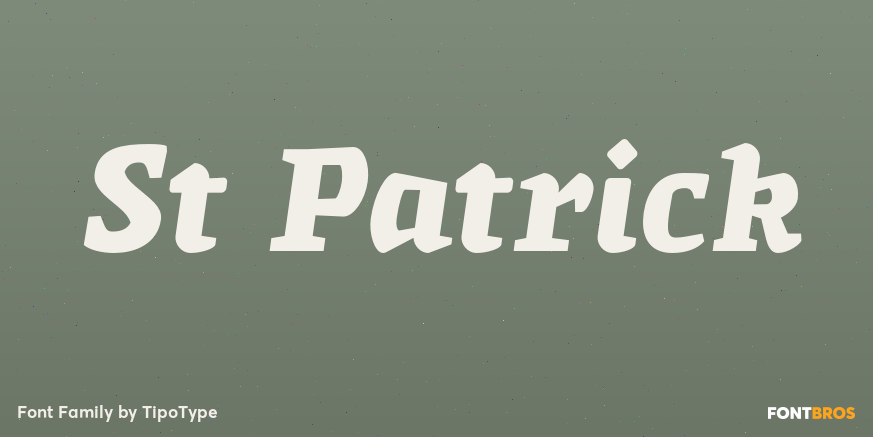
St Patrick
St Patrick is a typeface inspired by medieval inscriptions but adapted to modern typography. In addition to the regular style there are 4 variants that can be combined in layers. Includes smallcaps and alternatives. This typeface is the oblique variant…